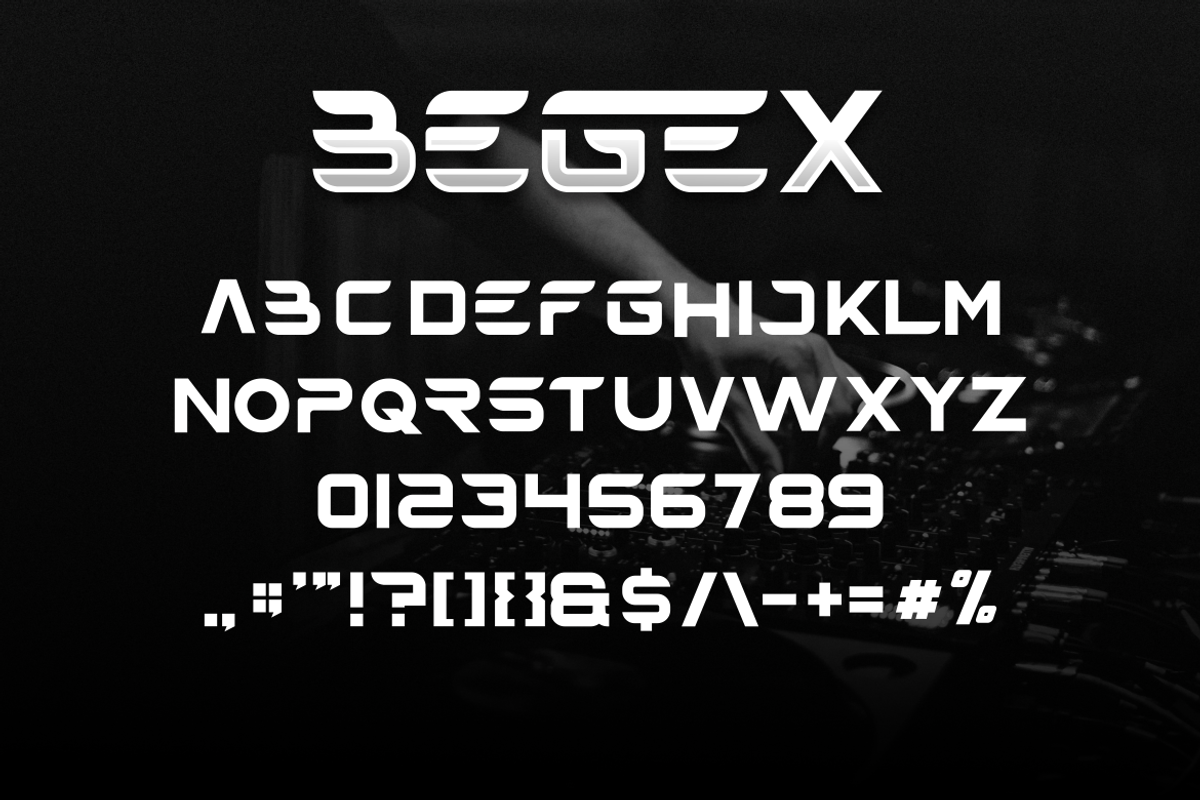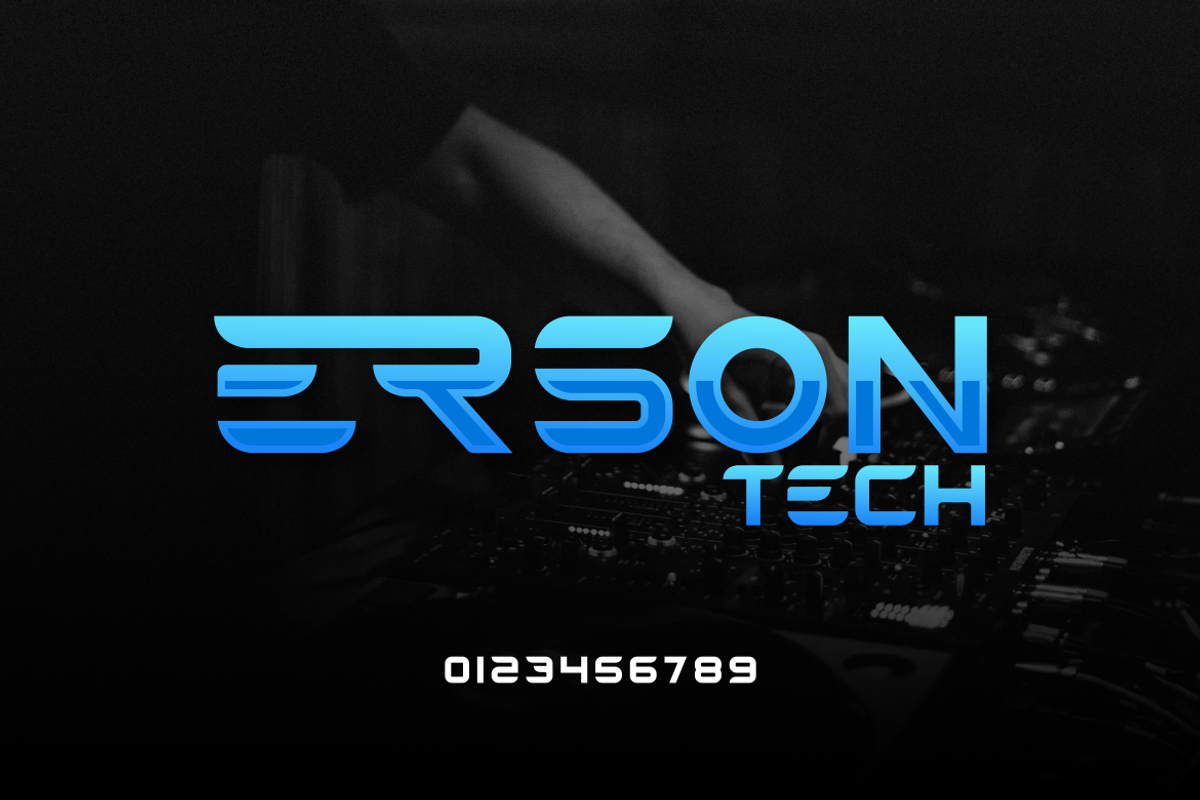
Begex Techno Font
Presenting our new product Begex Techno Font - Modern Font is a bold and authentic display font. This font is perfect for any branding project such as logos, t-shirt printing, creative products, and more. extraordinary in a variety of contexts.